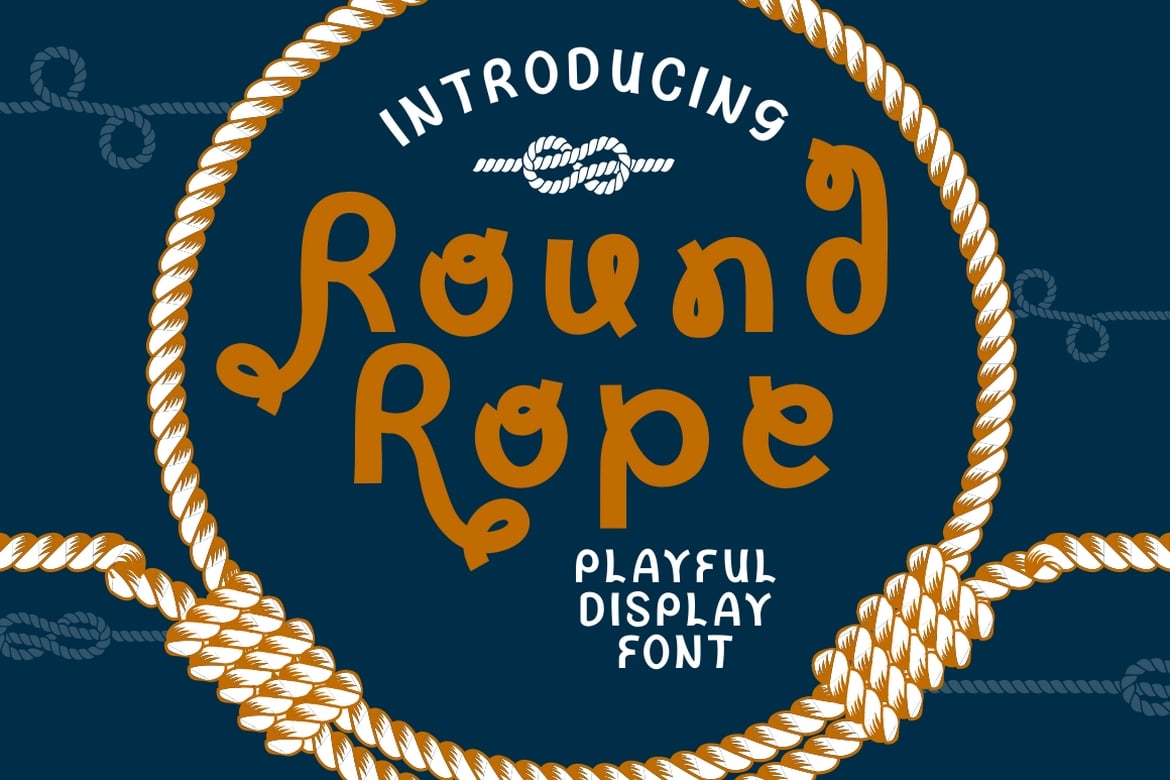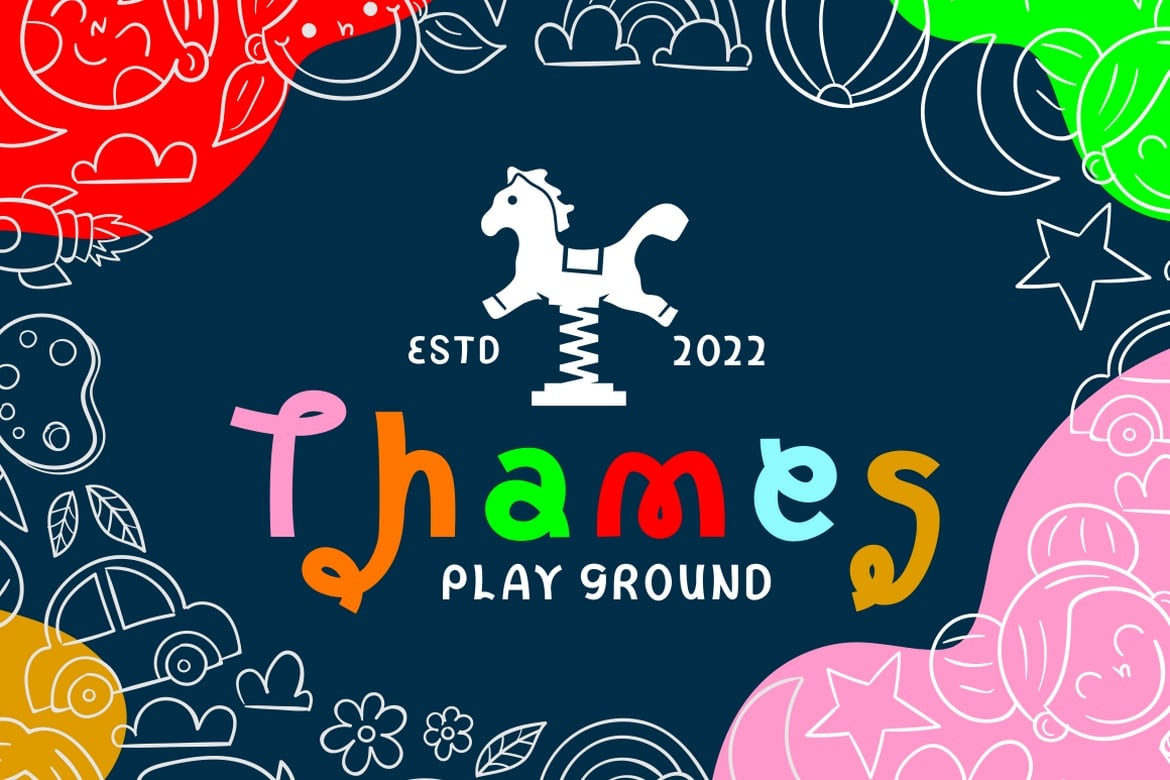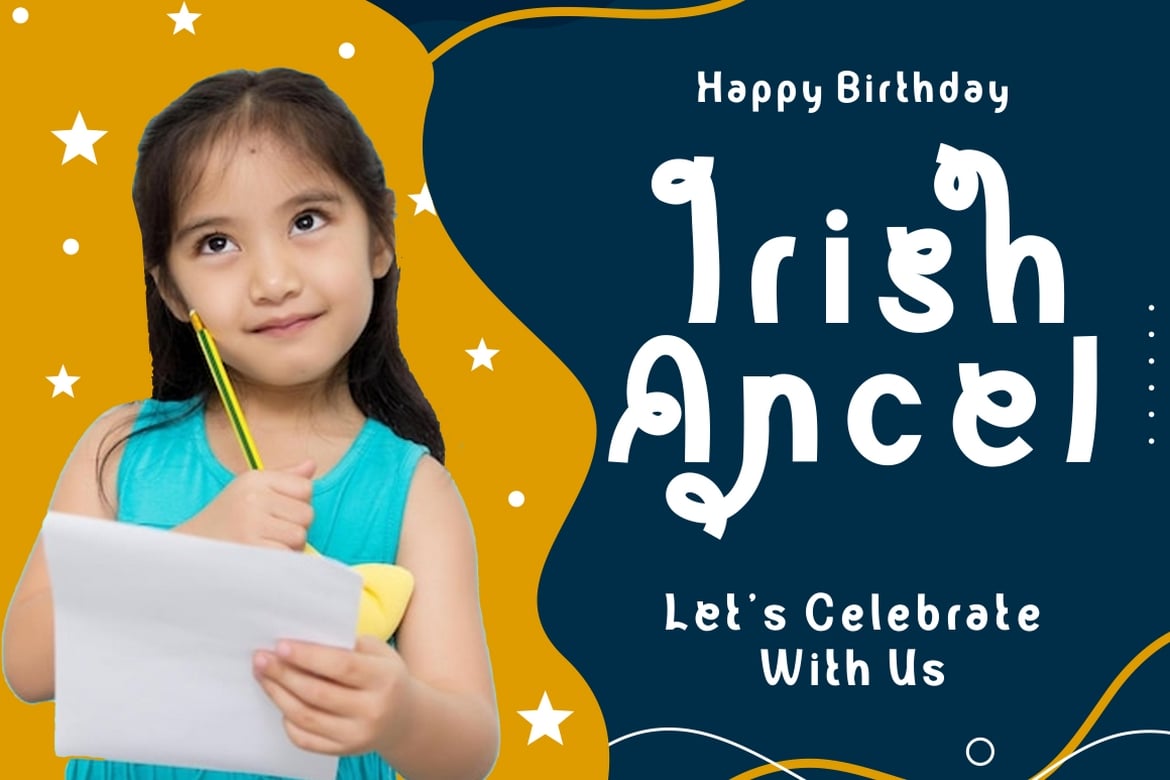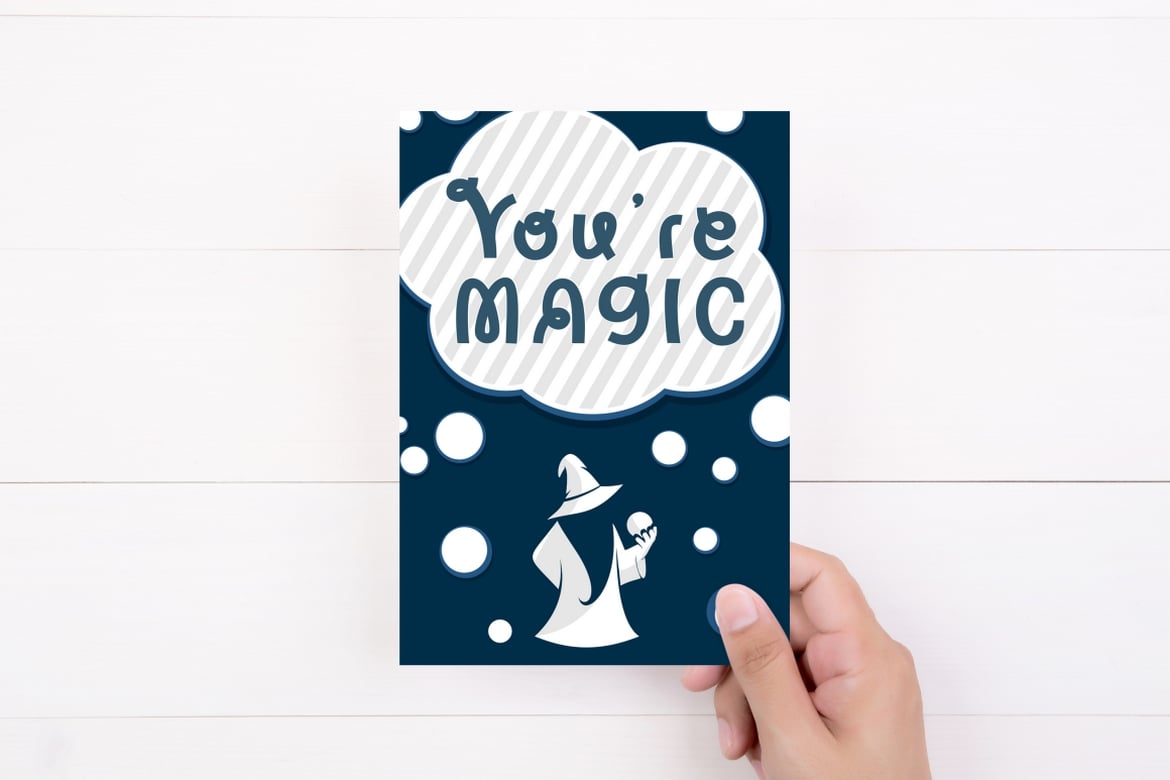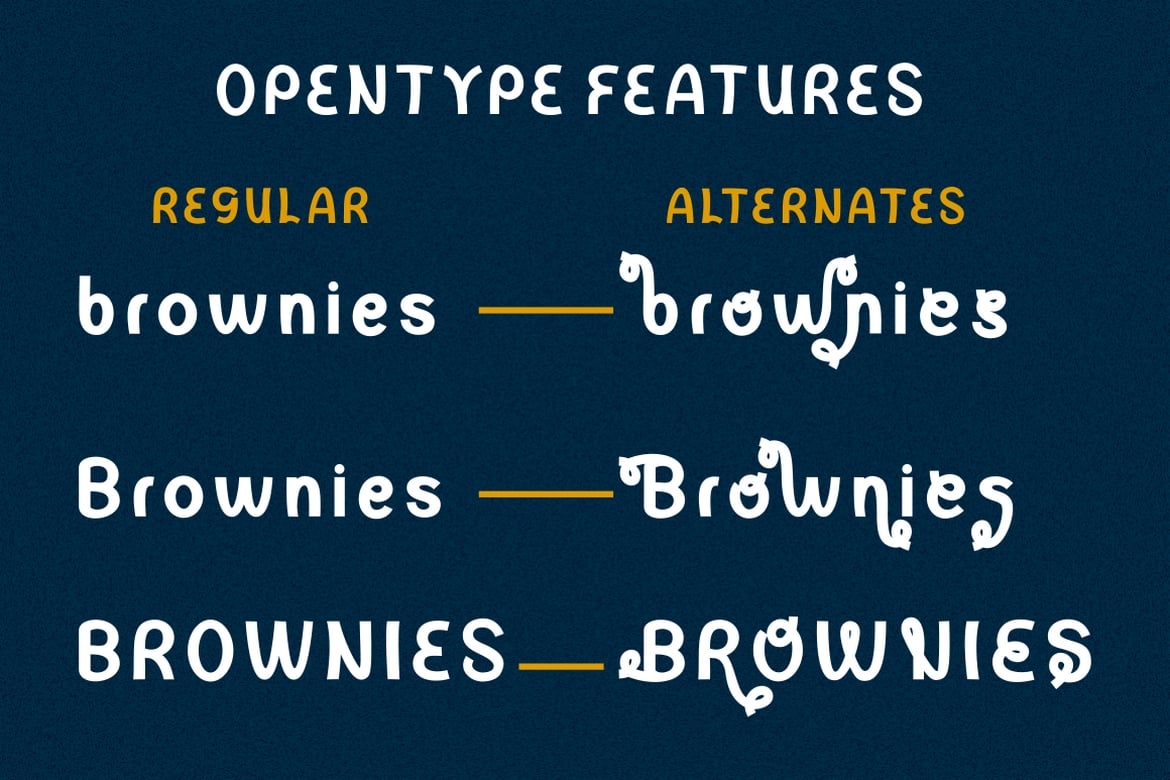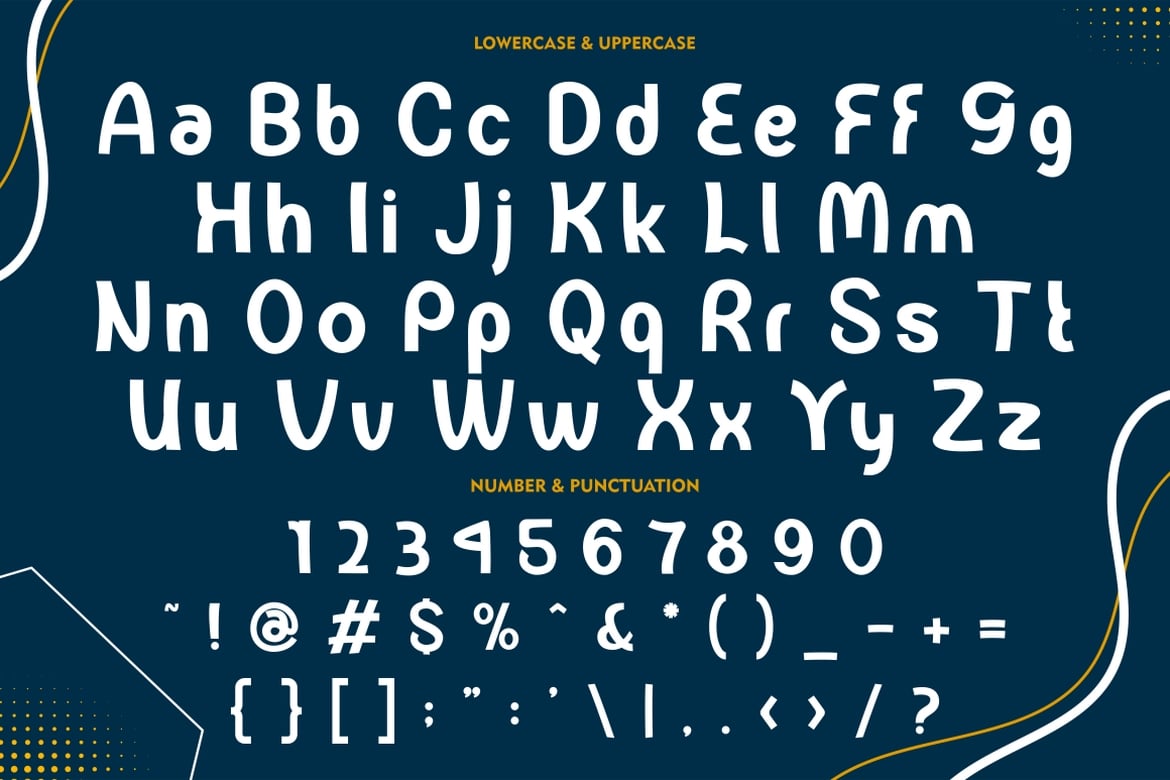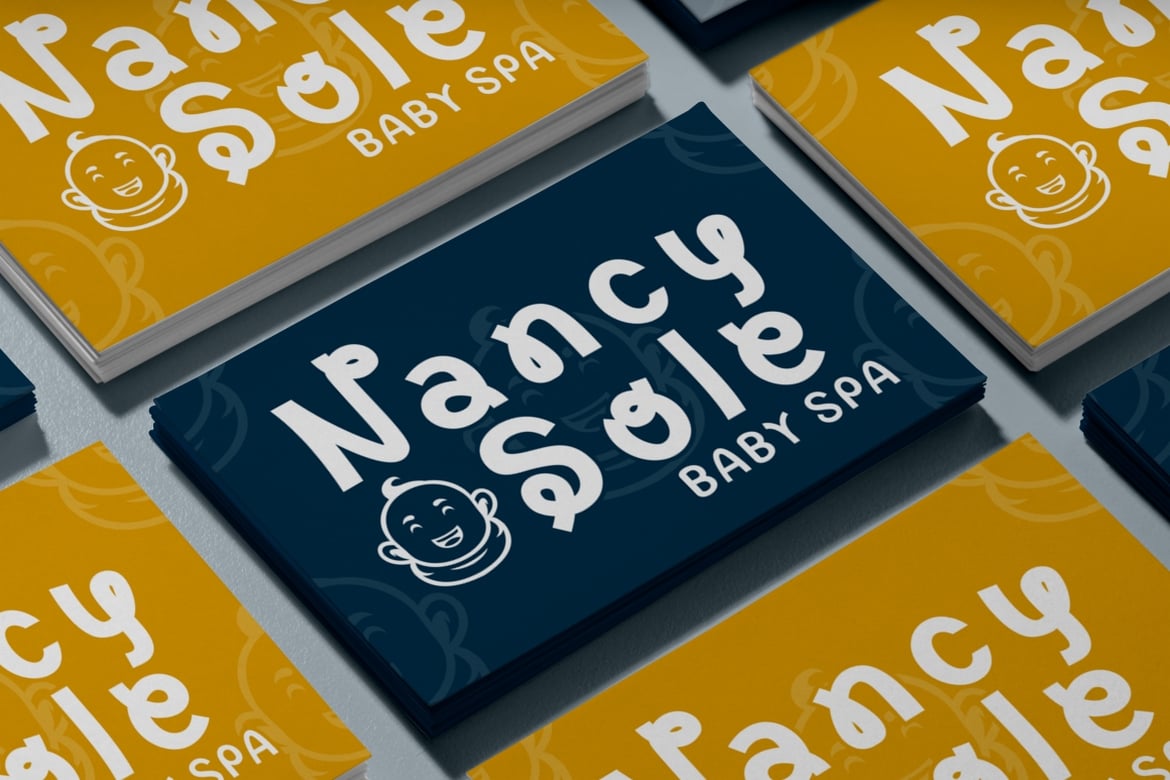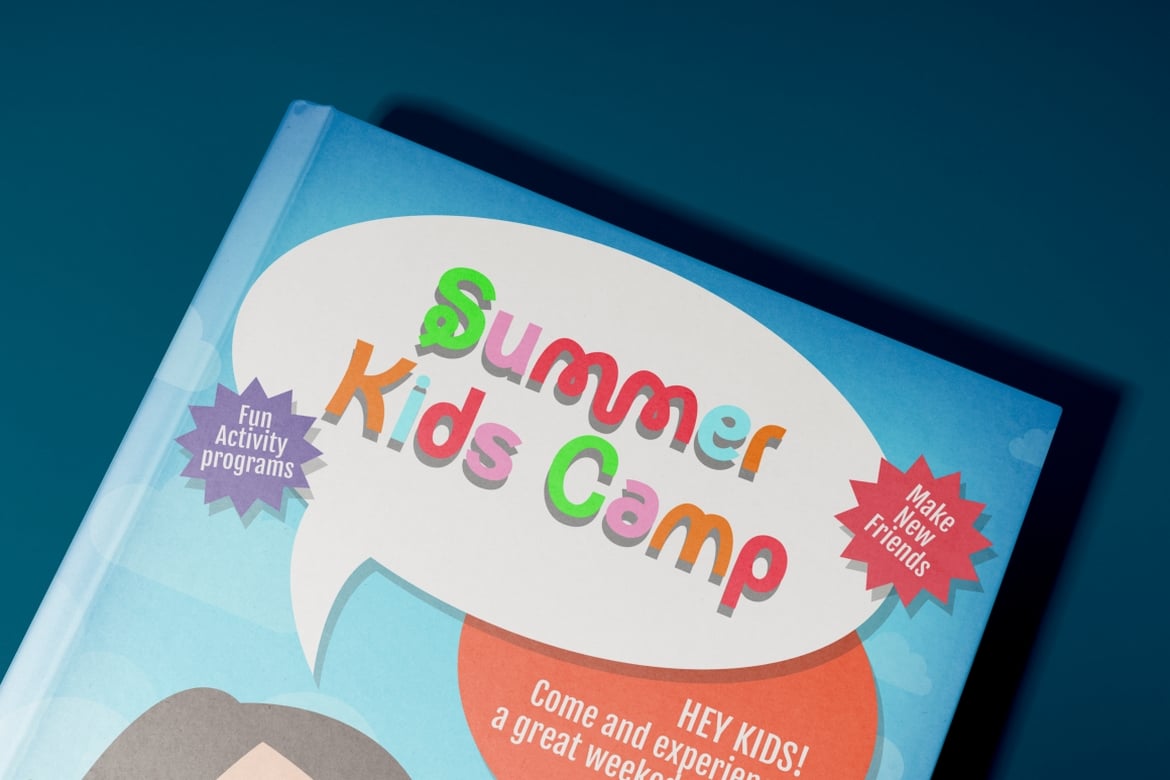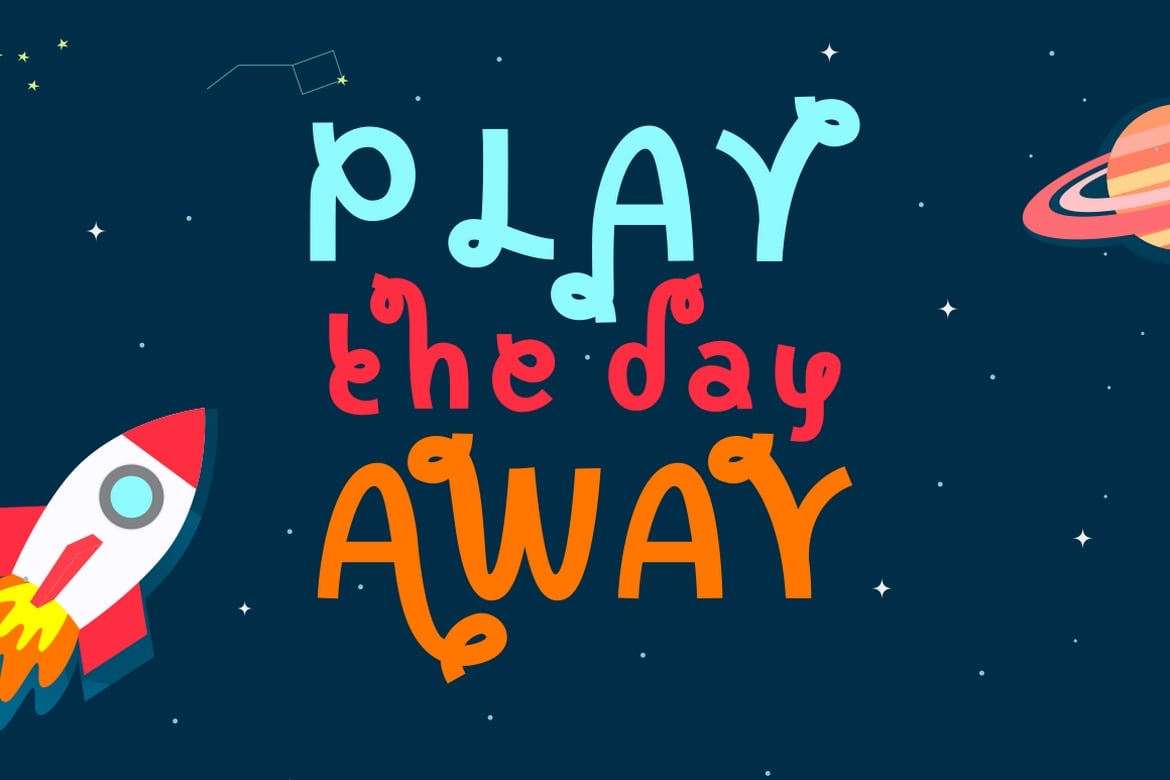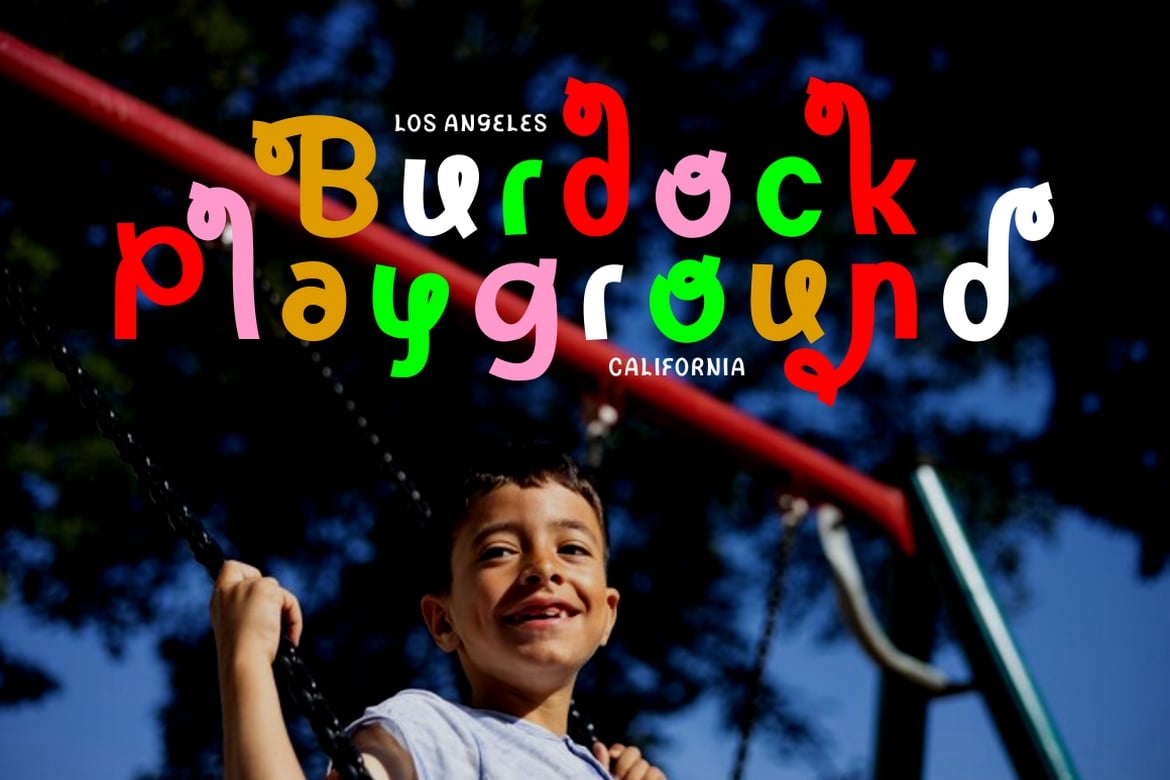
Round Rope – Playful Display Font
Round Rope – Playful Display Font is a fun and colorful typeface that is perfect for adding a playful touch to any design. This font was inspired by the idea of creating a font that is both playful and whimsical, perfect for children’s books, branding, packaging, posters, and any design that requires a fun and lighthearted touch. The font is designed with a playful, rounded appearance and features a hand-drawn feel that adds to its charm.
Round Rope is a fun and playful font that is sure to bring a smile to your face. Its unique style and playful appearance make it a great choice for a wide range of design projects. Whether you’re designing for children or adults, this font is sure to add a touch of whimsy and playfulness to your work.